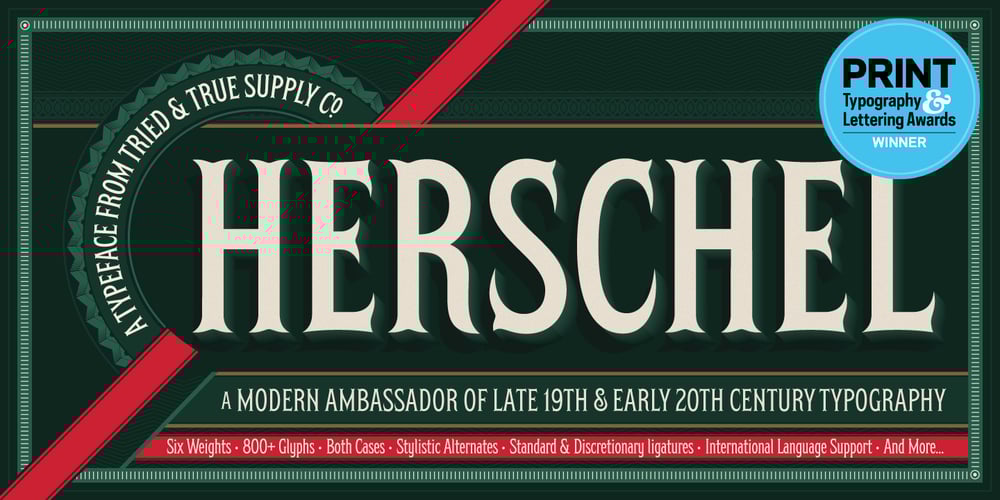
Herschel Font Family was designed by Brian Brubaker and published by Tried & True Supply Co.. Herschel contains 6 styles and family package options. Herschel ventures into the elaborate world of late 19th-century typography to bring its winsome charm and compelling aesthetics into modernity. Staying true to the spirit of its historical era of inspiration, Herschel was designed with extreme attention to detail. Although its aesthetic roots are firmly planted in the treasury of Gilded Age typography, it has been technically constructed to withstand all the rigorous demands that modern technology places on type today. Herschel’s nostalgic, flared, and gently bifurcated serifs shine brightest when employed as display type, but are suited well for any application where inimitable character is needed. Named after designer Brian Brubaker’s maternal grandfather, a retired dairy farmer of more than 60 years, Herschel is available in six delectable weights: Skim, One Percent, Two Percent, Whole, Creamline, and Butter. Features overview: • 800+ glyphs per weight • 120+ stylistic alternates • Upper and lower case • Titling/Drop capitals with multiple and contextual ligatures • Lining, oldstyle, proportional, and tabular figures • Standard and discretionary ligatures • Unique dingbats and special characters • International language support for 200+ latin-based languages, including Vietnamese